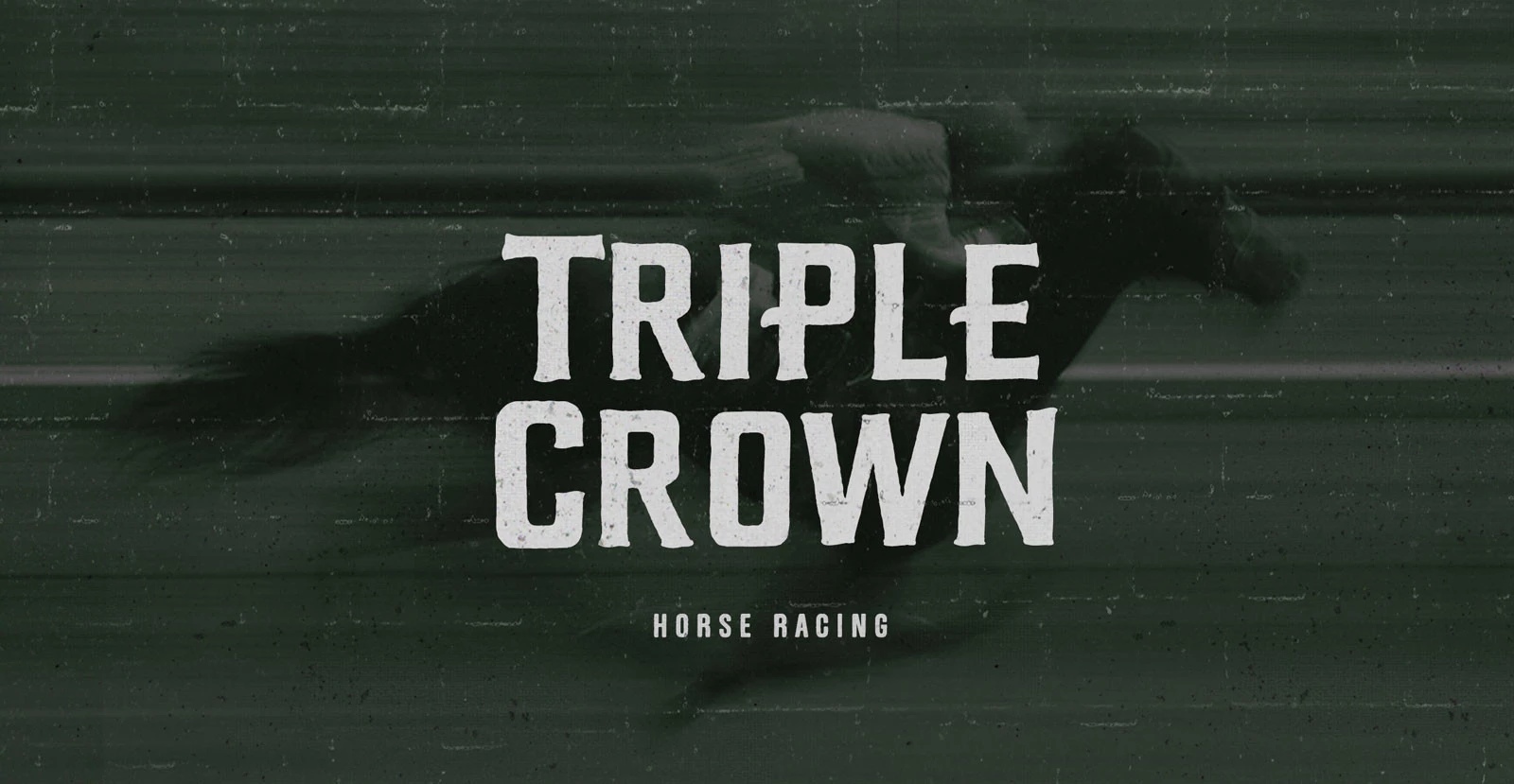
Diamond Creek Font
Diamond Creek Font is perfect for western-themed restaurants, country music branding, outdoor adventure logos, rustic cabin signage, ranch property advertising, cowboy merchandise designs, vintage saloon graphics, rodeo event promotions, wilderness lodge branding, and authentic americana merchandise.
What makes Diamond Creek Font so exciting is its remarkable ability to capture the rugged spirit and untamed beauty of the American frontier through authentic western typography. This captivating typeface draws inspiration from old mining camps and frontier settlements, featuring letterforms that seem weathered by mountain winds and polished by creek waters flowing through diamond-rich valleys. The font's rustic design elements perfectly embody themes of adventure, authenticity, and the pioneering spirit that built the American West, making it an essential choice for brands seeking to connect with audiences who value genuine heritage and outdoor adventure.
Diamond Creek Font comes in multiple font families including Regular, Bold, Light, Distressed, Weathered, Condensed, Extended, and Vintage variations. Each family member maintains the core frontier characteristics while offering different authenticity levels and stylistic approaches to suit various western design requirements.
The hand-crafted quality in Diamond Creek Font makes it particularly suitable for businesses and brands emphasizing authenticity and natural experiences. Its rugged character ensures excellent readability while maintaining the weathered charm that appeals to customers seeking genuine outdoor adventures and heritage experiences.
Creative professionals working in outdoor recreation and western lifestyle markets appreciate how Diamond Creek Font transforms ordinary text into authentic declarations of frontier spirit. The typeface's comprehensive character set includes special western symbols and decorative elements that enhance the overall frontier atmosphere of any design project.
For design professionals serving outdoor adventure, western entertainment, and heritage tourism industries, Diamond Creek Font provides the perfect foundation for establishing memorable visual identities that capture the enduring appeal of the American frontier and the timeless call of the wild outdoors.